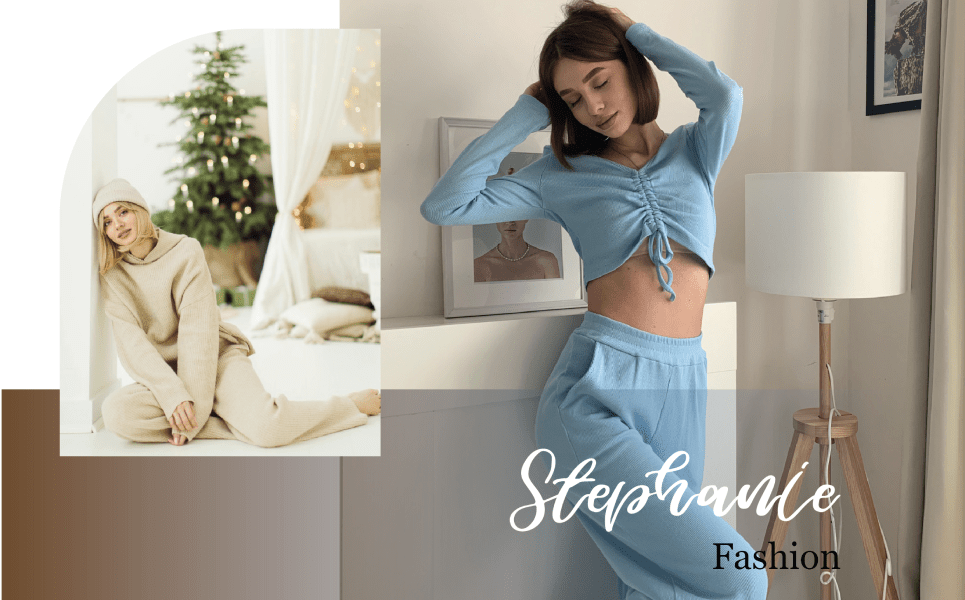
Marthena Swans Script Font
It’s a new modern script font with a handmade calligraphy style, decorative characters, and an irregular baseline. Trendy and feminine style. it looks lovely on wedding invitations, thank you cards, quotes, greeting cards, logos, business cards and more.
- Full upper + lowercase characters
- Numbers + punctuation
- Ligatures ( ee, ii, ff, and many more)
- Alternate Glyphs
- Swashes ( Beginning & Ending Swashes Sets)
- Multilingual Support